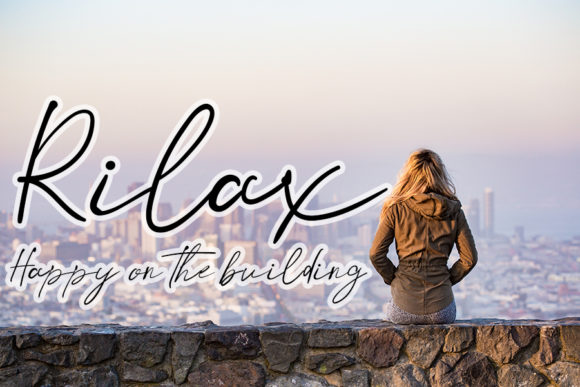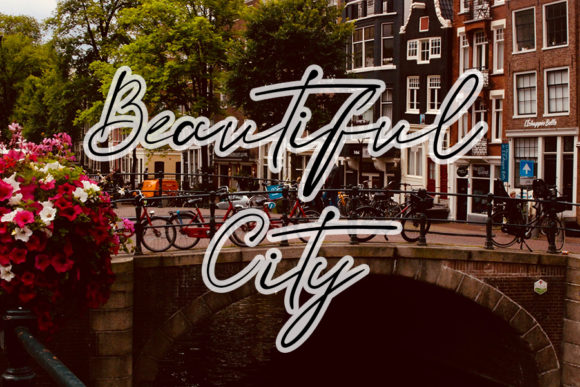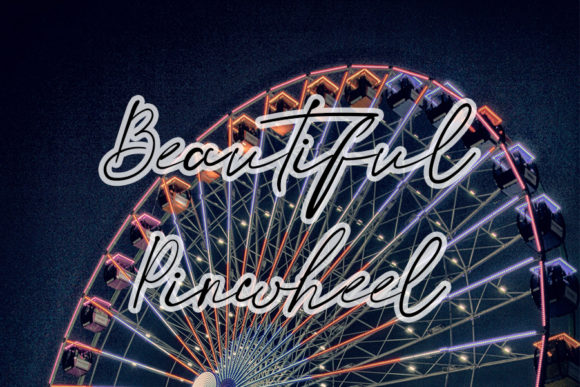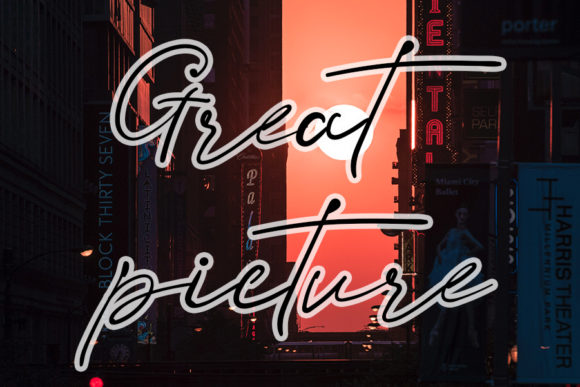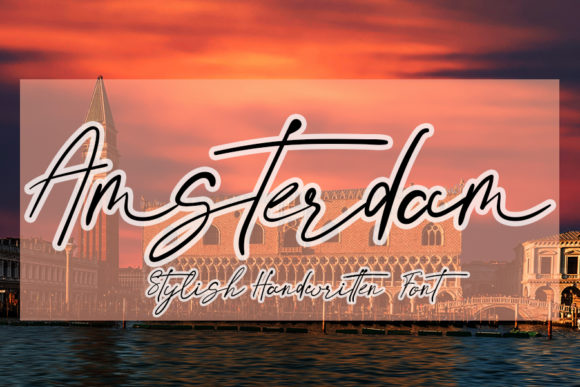
Discover the Charm of Amsterdam Font: A Simple yet Versatile Handwritten Font
Are you on the hunt for a font that exudes simplicity, relaxation, and versatility? Look no further than the Amsterdam Font! This beautifully crafted handwritten font is sure to capture your heart with its effortlessly chic style, making it perfect for designers and crafters alike. In this article, we’ll dive into the wonderful world of Amsterdam Font, exploring its features, benefits, and uses, as well as provide you with valuable insights on how to make the most of this incredible font.
What is Amsterdam Font?
Amsterdam Font is a modern, handwritten font that boasts a refreshingly simple and relaxed aesthetic. Its clean lines, subtle curves, and organic feel make it an excellent choice for a wide range of design projects, from digital content to print materials. Whether you’re creating a logo, heading, or body text, Amsterdam Font is sure to bring a touch of elegance and sophistication to your work.
The Versatility of Amsterdam Font
One of the standout features of Amsterdam Font is its incredible versatility. This font can seamlessly adapt to various design styles, from minimalist and modern to vintage and whimsical. Its neutral yet charming personality makes it an excellent pairing for a diverse range of themes, including:
- Fashion and beauty branding
- Wedding and event invitations
- Blogging and digital content creation
Benefits of Using Amsterdam Font
So, what makes Amsterdam Font a must-have for designers and crafters? Here are just a few benefits you can expect:
- Ease of use: Amsterdam Font is incredibly easy to read and works beautifully in both large and small sizes.
- Flexibility: This font can be used for a wide range of design projects, from digital to print.
- Uniqueness: Amsterdam Font has a distinctive, handcrafted feel that sets it apart from more traditional fonts.
- Emotional connection: The font’s warm, friendly personality helps create an instant connection with your audience.
Tips for Using Amsterdam Font
To make the most of Amsterdam Font, here are some expert tips to keep in mind:
- Pair it with bold colors: Amsterdam Font looks stunning when paired with bright, bold colors that add a pop of personality to your design.
- Experiment with sizes: Don’t be afraid to play with different font sizes to create visual interest and hierarchy in your design.
- Add texture and patterns: Amsterdam Font works beautifully with textures and patterns, adding depth and visual interest to your design.
- Use it for headlines and body text: This font is versatile enough to be used for both headlines and body text, making it perfect for creating cohesive designs.
In conclusion, Amsterdam Font is a simple yet incredibly versatile handwritten font that is sure to capture your heart. Its unique blend of elegance, sophistication, and playfulness makes it an excellent choice for designers and crafters looking to create spectacular designs. Whether you’re working on a branding project, creating digital content, or crafting print materials, Amsterdam Font is the perfect companion to help you bring your vision to life.